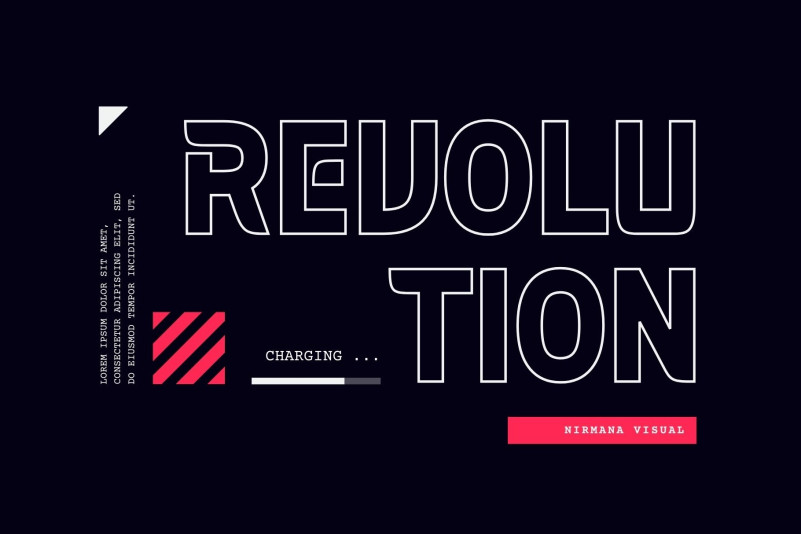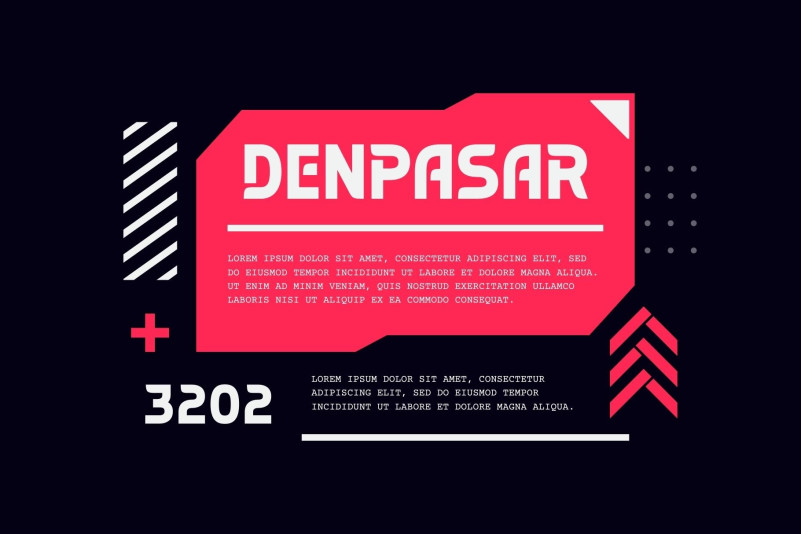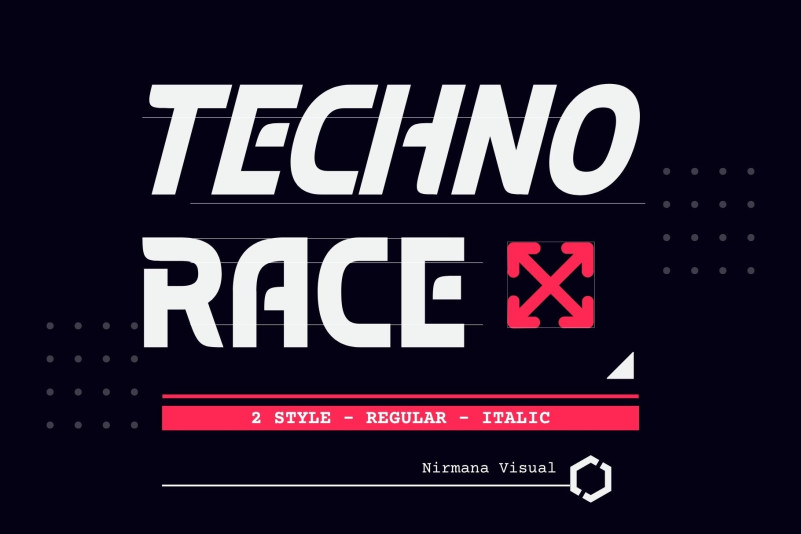
Techno Race Font
Techno Race – Powerful sports display font. 2 styles: Regular & Italic, great for headers, logos, typography, clothing, magazines, brochures, packaging and more for your design needs, make your designs You are more modern and professional.